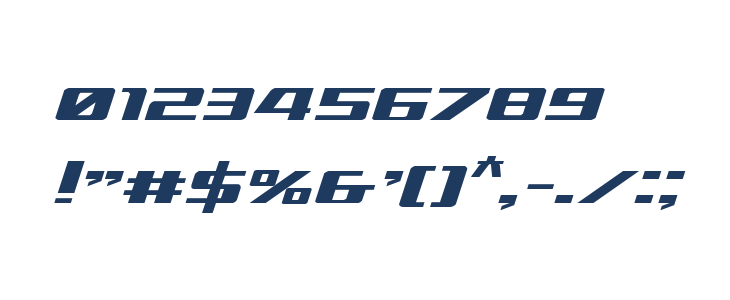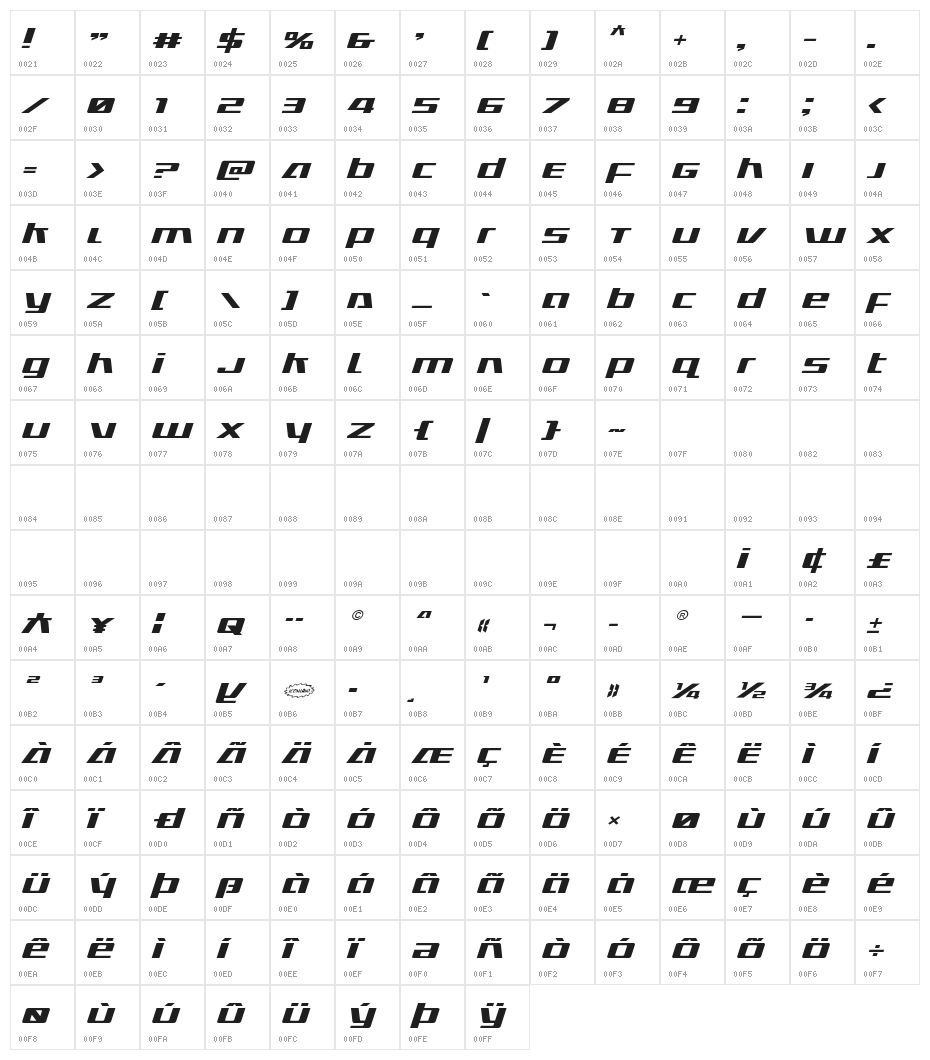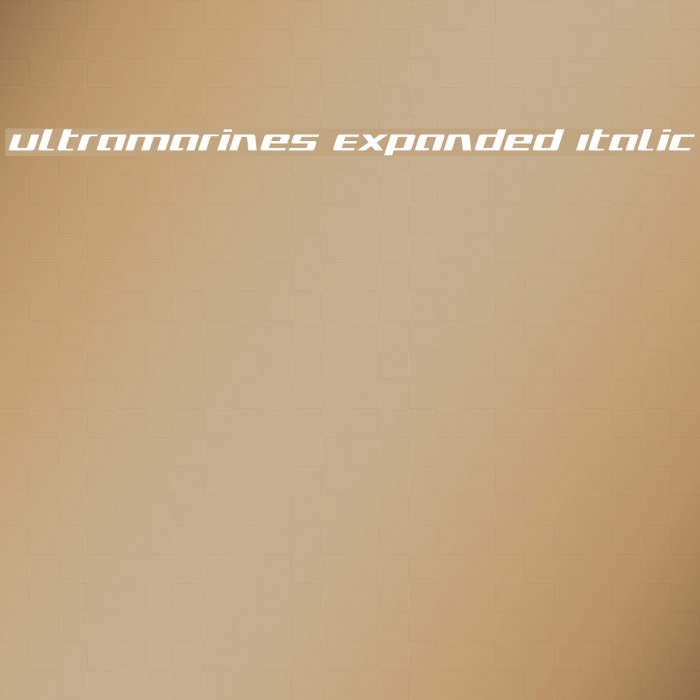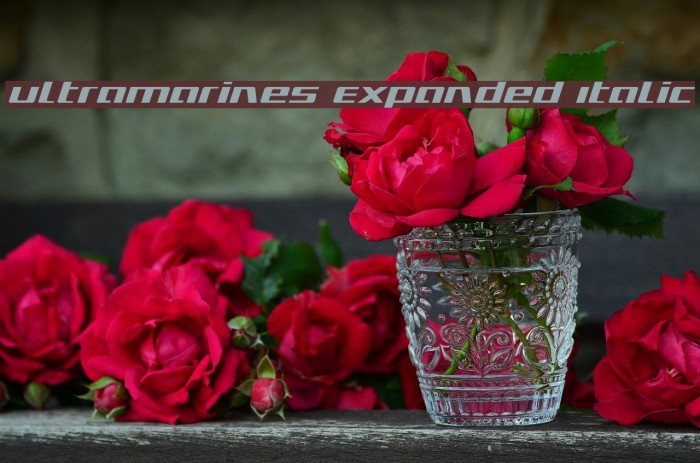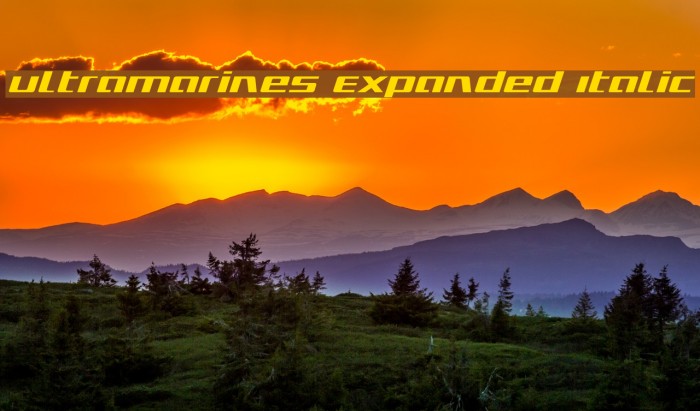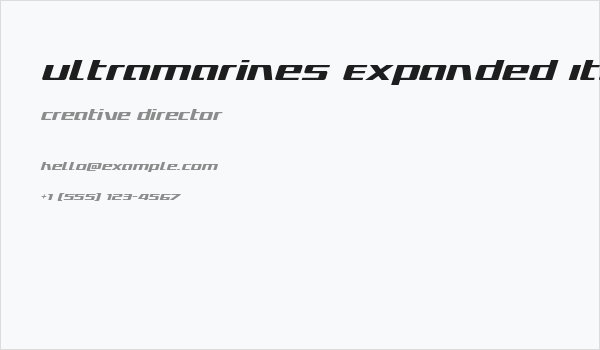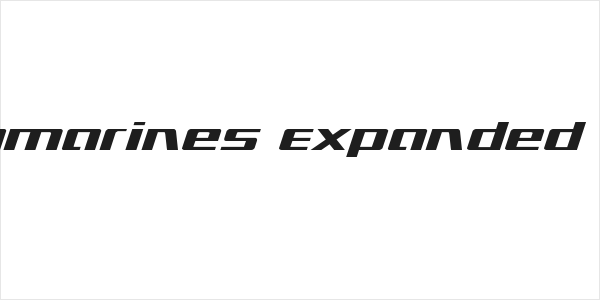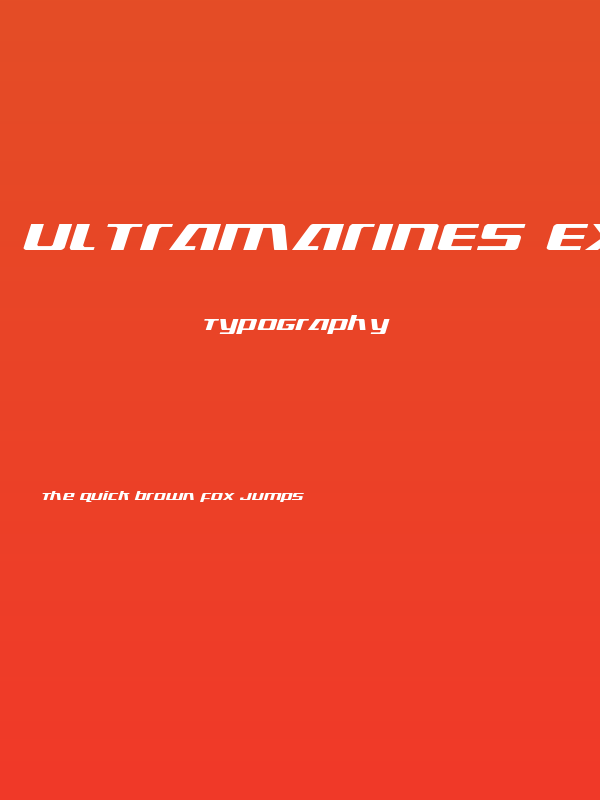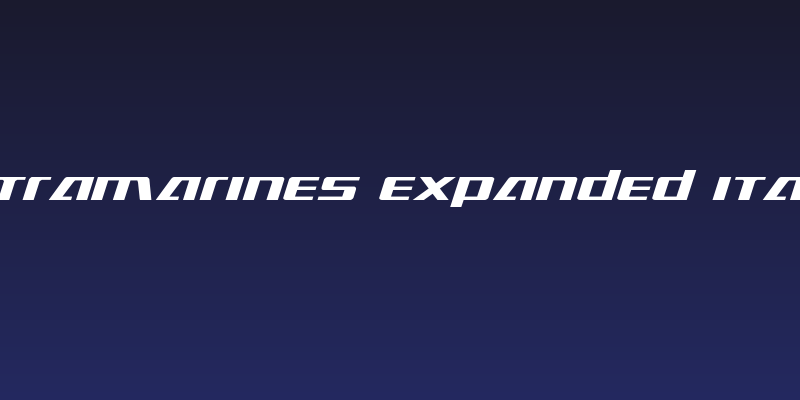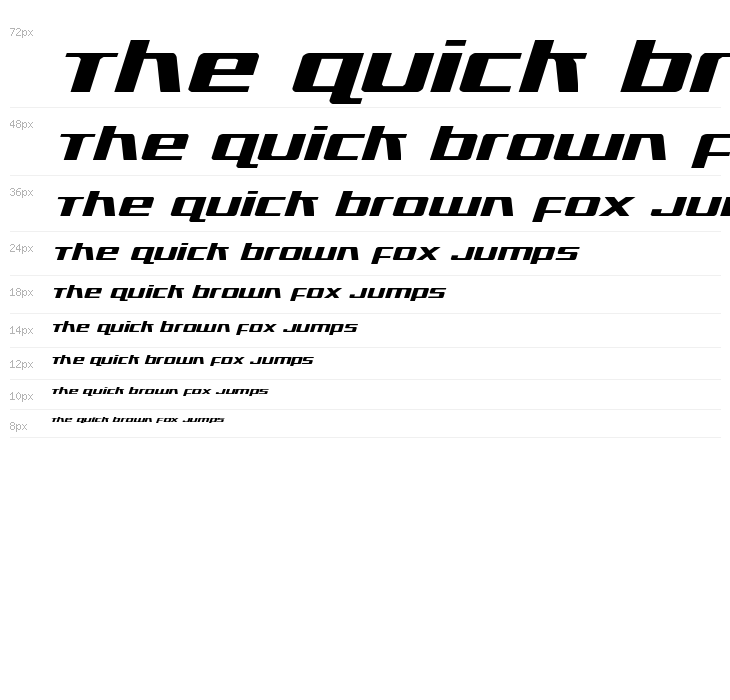
Ultramarines Expanded Italic Font
Ultramarines Expanded Italic Description
This font features a bold, futuristic design with an italic slant, giving it a dynamic and forward-moving appearance. The characters are expanded, providing a wide stance that enhances readability while maintaining a sleek and modern aesthetic. The angular cuts and sharp edges contribute to its high-tech feel, making it suitable for projects that require a contemporary and innovative look. The font's geometric structure is consistent across all characters, ensuring a uniform appearance. Its unique style is ideal for making a strong visual impact.
| Proposed Projects | Ideal for technology branding, video game titles, sci-fi movie posters, and modern advertising campaigns. |